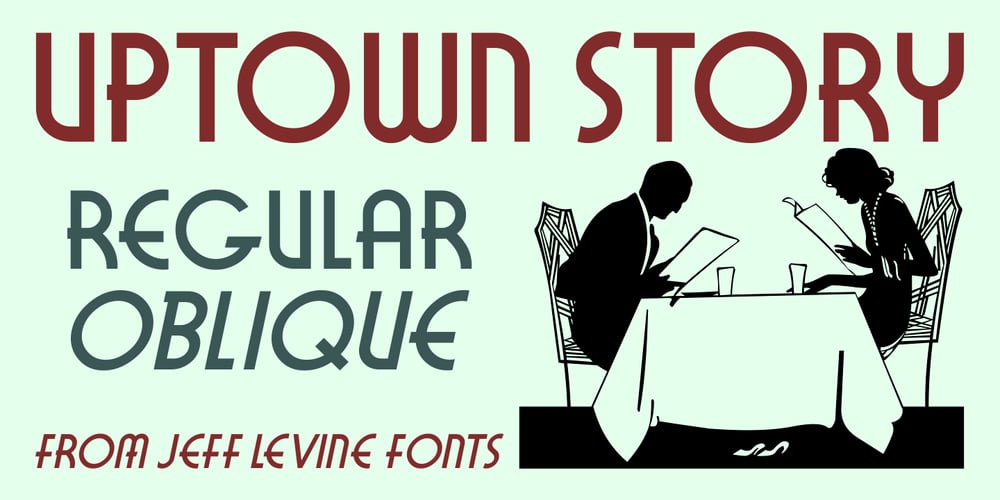
Uptown Story JNL Font Family was designed by Jeff Levine and published by Jeff Levine. Uptown Story JNL contains 2 styles and family package options. In the April 18, 1931 edition of The Motion Picture Herald is an ad from Paramount Pictures promoting their latest releases at the time. The main word copy is done in an Art Deco sans serif style.This hand lettering is now available as Uptown Story JNL, in both regular and oblique versions.